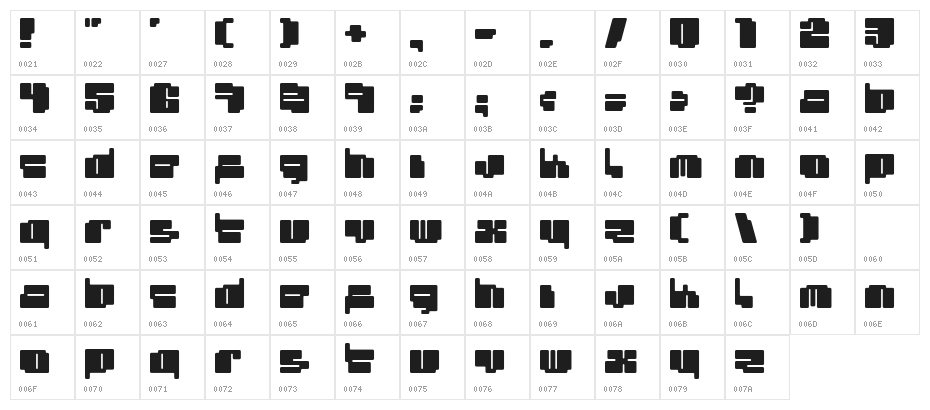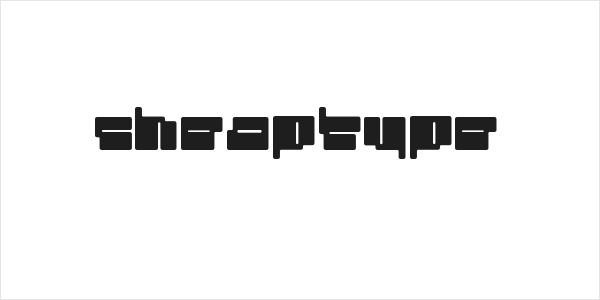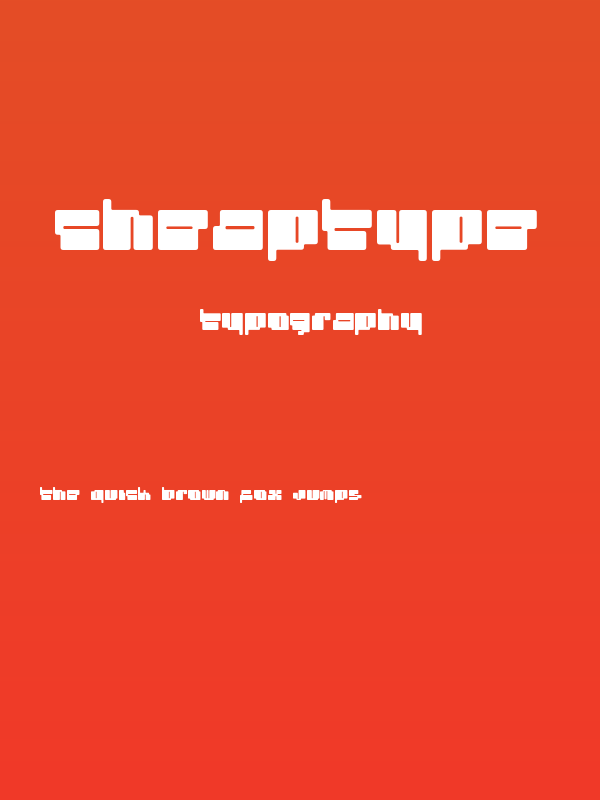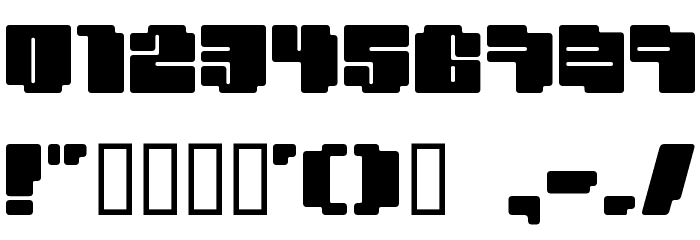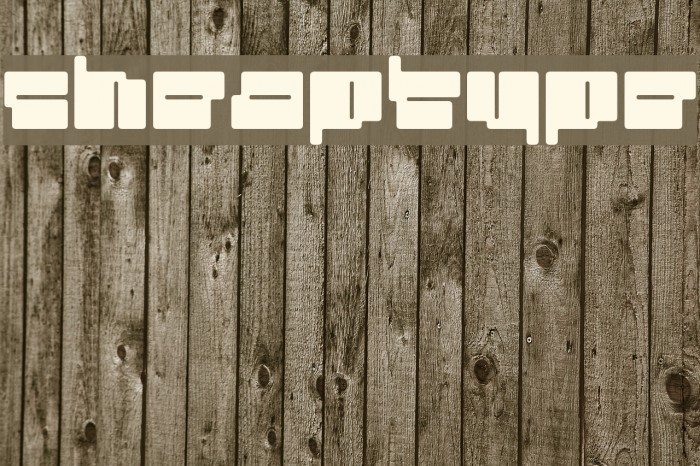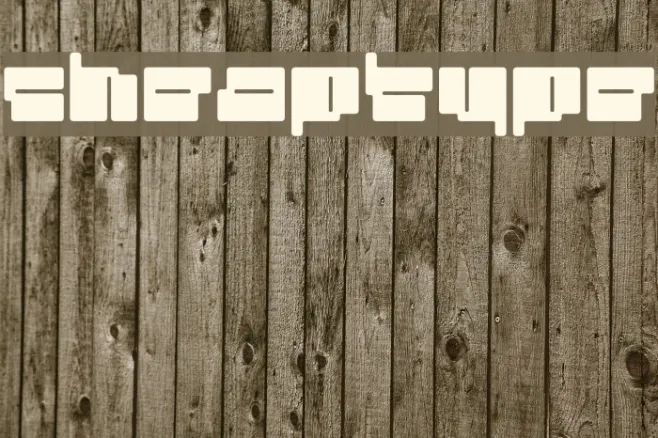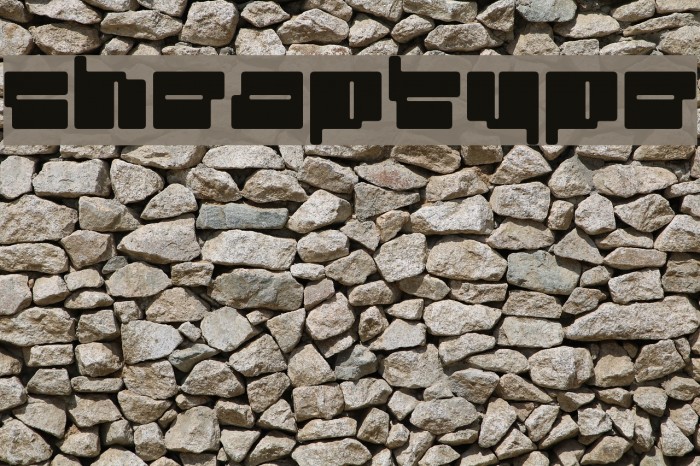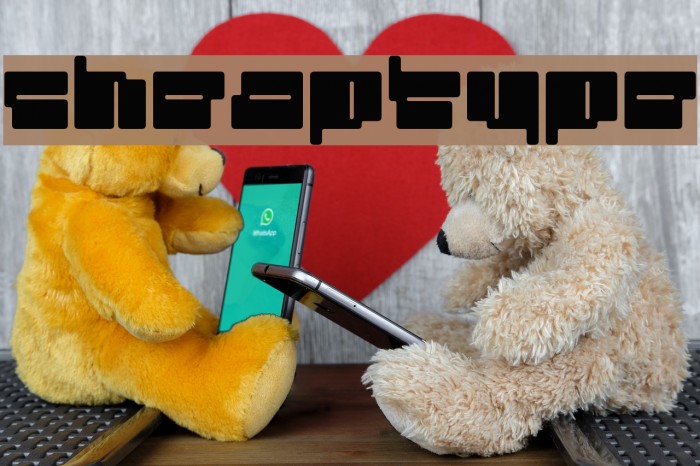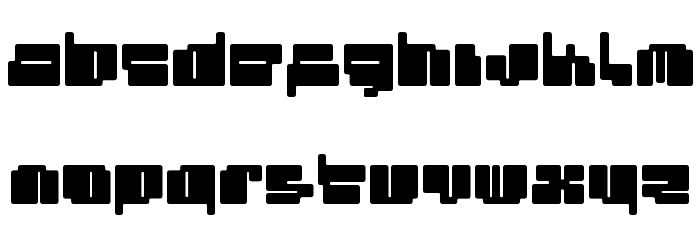
cheaptype Font
cheaptype Description
This font features a bold, blocky style with a strong geometric influence. The characters are uniformly thick, creating a heavy and impactful appearance. The design is highly stylized, with a futuristic and digital aesthetic that is reminiscent of early computer graphics or pixel art. The uppercase and lowercase letters maintain a consistent height, contributing to a monospaced feel, although the font is not strictly monospaced. The numbers and special characters follow the same design principles, ensuring a cohesive look across all glyphs. The overall impression is one of strength and modernity, making it suitable for attention-grabbing headlines or digital-themed projects.